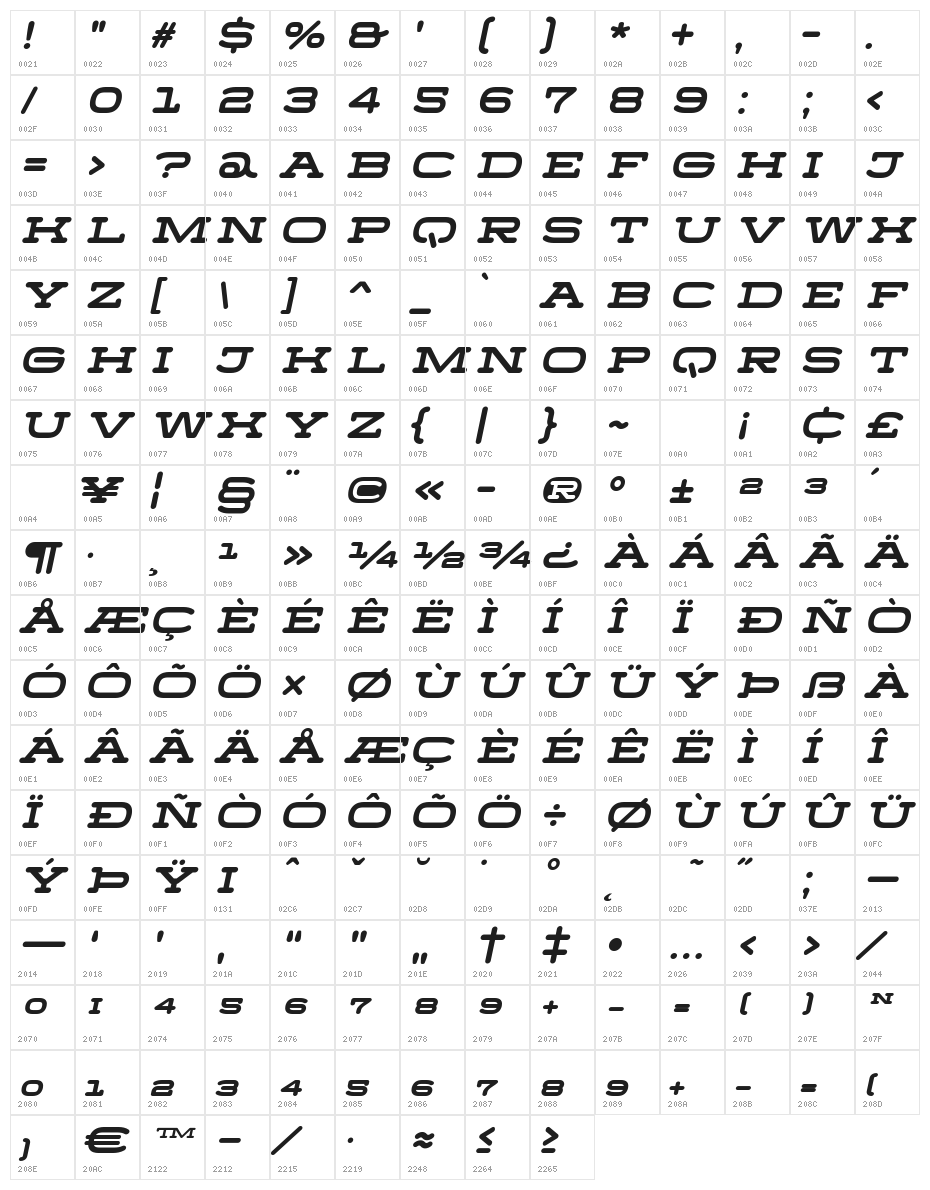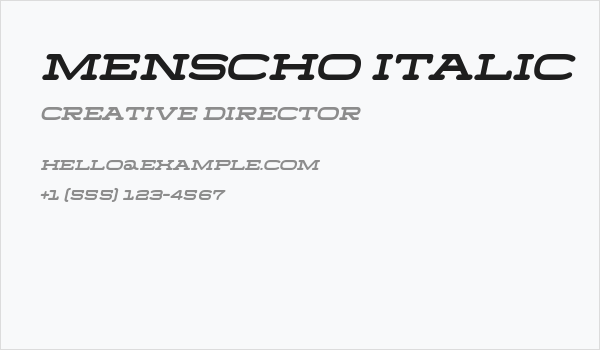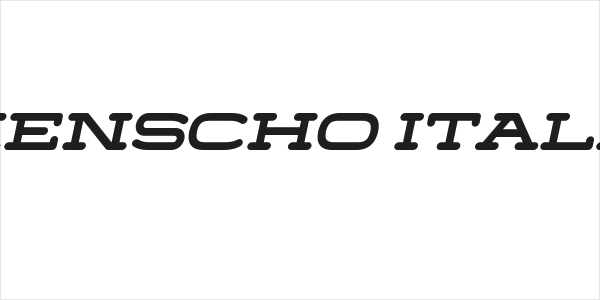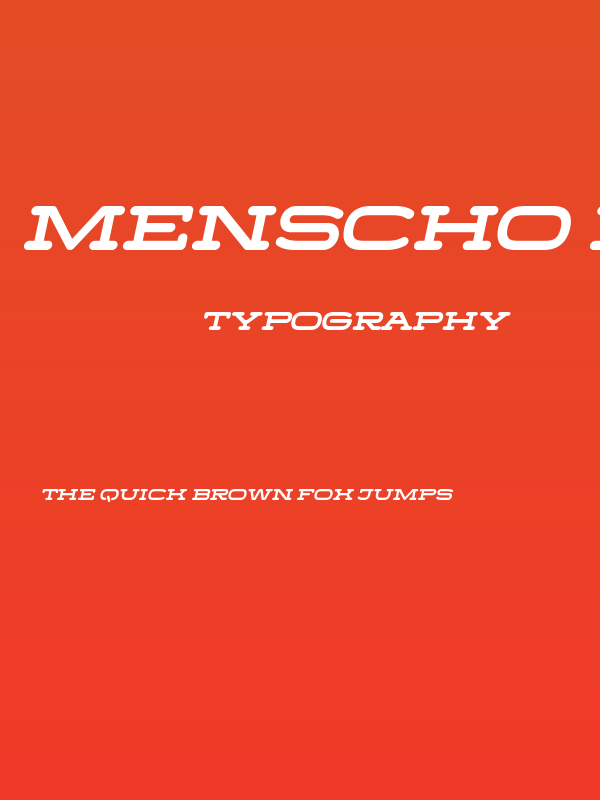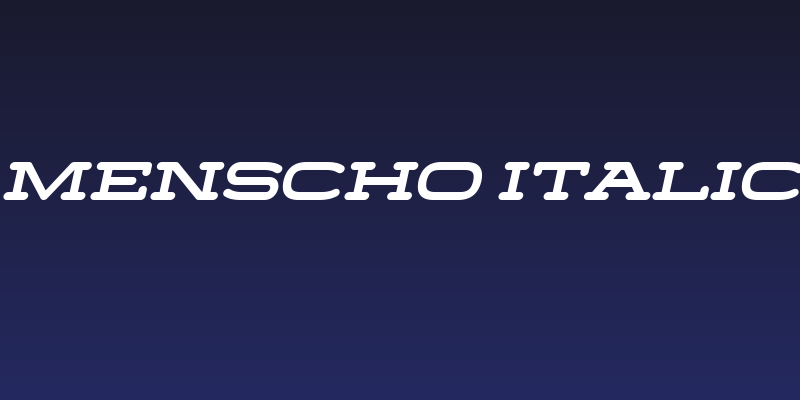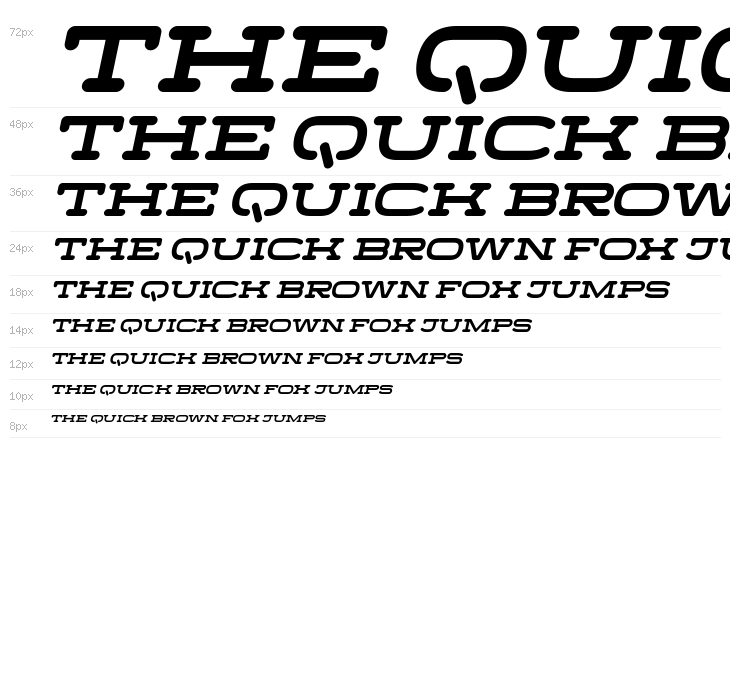
Menscho Italic Font
Menscho Italic Description
This font exhibits a modern and sleek design with a distinct italic slant, giving it a dynamic and forward-moving appearance. The characters are bold with rounded edges, providing a soft yet impactful look. The uppercase letters are uniform in height, while the lowercase letters maintain a consistent style that complements the uppercase. The numbers are clear and legible, with a similar boldness and rounded design. Special characters are well-integrated, maintaining the overall aesthetic. This font's unique style makes it suitable for various creative applications.
| Proposed Projects | Ideal for branding, advertising, and digital media projects that require a modern and bold aesthetic. |